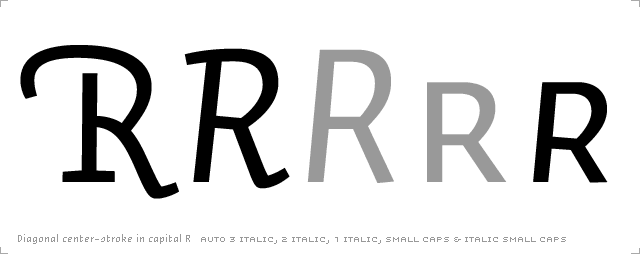
While designing a typeface, concentrating on just one single character doesn't make much sense. How a character behaves beside other characters in a line of text is much more important. However, removed from its context, a single character may possess remarkable beauty. Odd details, strange constructions, unexpected personalities.